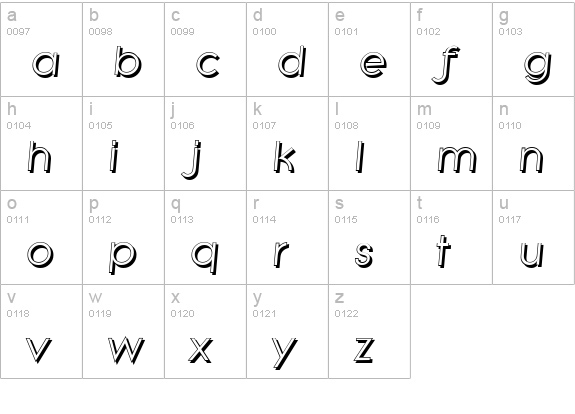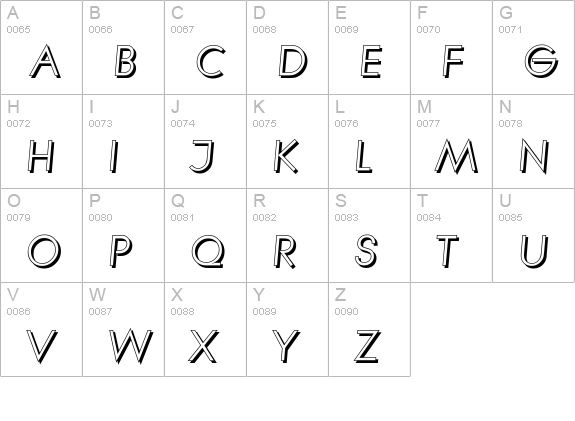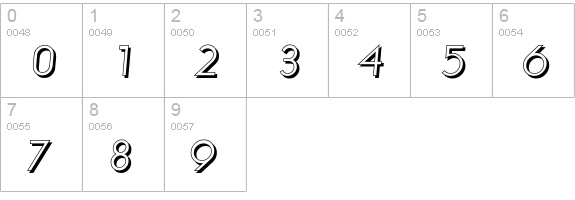
LiteraShadow-Italic Font Details
LiteraShadow-Italic is a distinctive, italic variant in the LiteraShadow typeface family \xE2\x80\x94 well suited to design and typography projects.
Introducing LiteraShadow-Italic font, a unique and elegant typeface that exudes sophistication and style. Its slanted italic design adds a touch of flair to any project, making it perfect for branding, logos, invitations, and more. The delicate shadow effect gives this font a modern and dynamic look, making it stand out from the crowd. Best of all, LiteraShadow-Italic font is completely free to download at FontsMarket.com. With just a few clicks, you can add this stunning font to your collection and elevate your designs to the next level. Don't miss out on this opportunity to enhance your creative projects with this beautiful and versatile typeface. Download LiteraShadow-Italic font today and let your creativity shine!